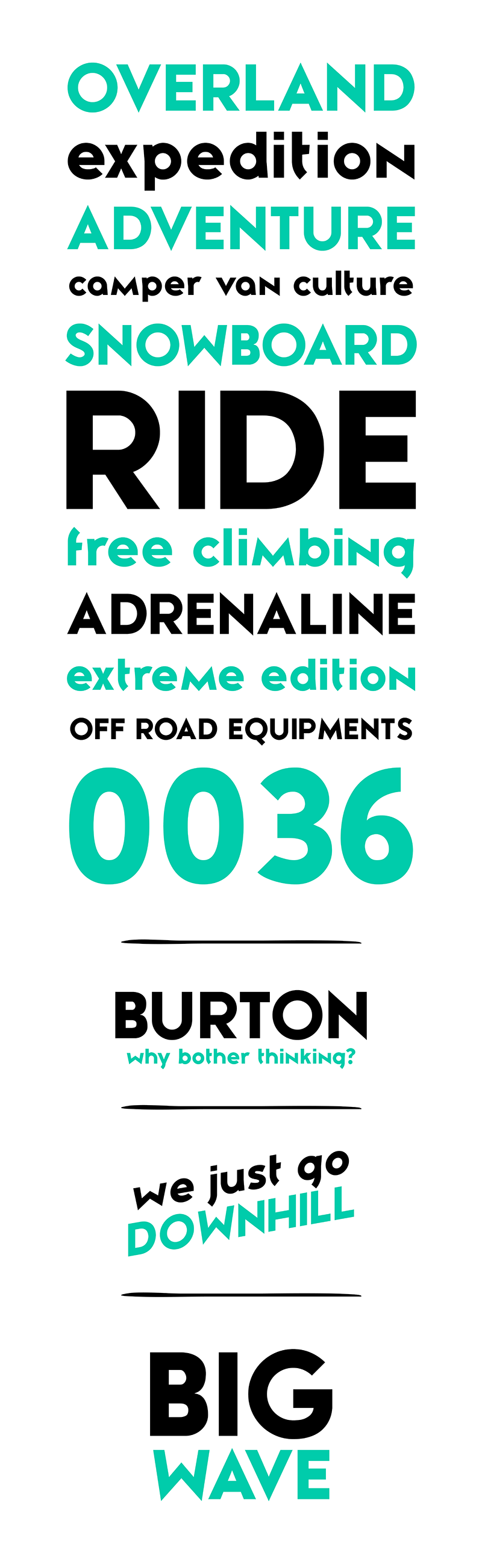
Zeronero is a Geometric Sans Serif Font. Simple geometric shapes influence the design of this typeface, the construction follow the rules of Roman Capital letter but give special importance to triangles and circles. Zeronero is optimized for web and give it’s best as Display Font, suitable for titles, logos, advertising and billboards. Zeronero Family: Zeronero Regular FULL version available here > https://www.monofonts.com/products/zeronero For commercial use, you can purchase the font at: https://www.monofonts.com/products/zeronero For more info on our license: http://www.monofonts.com/license |